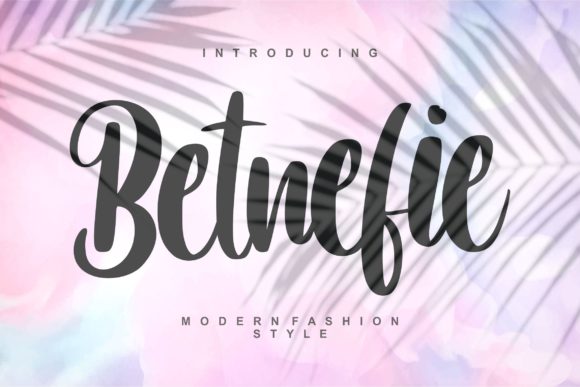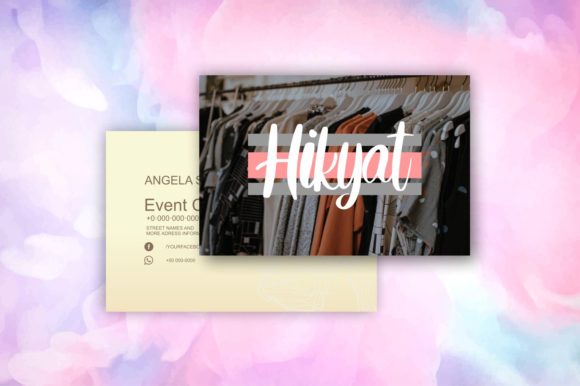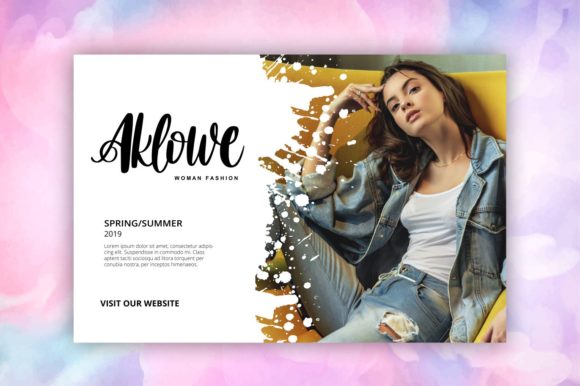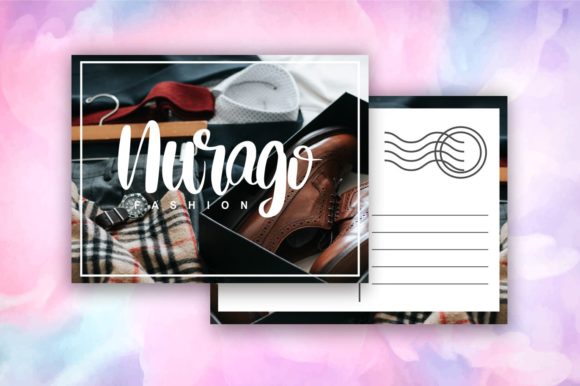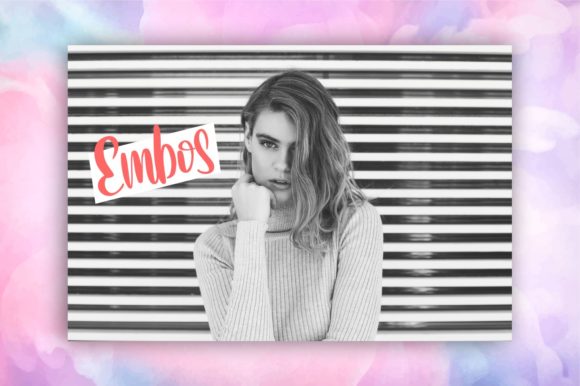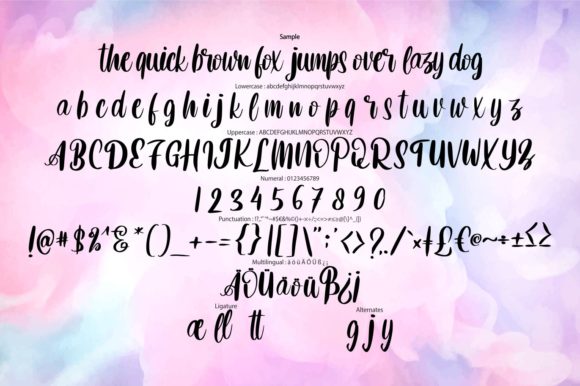
Betnefie Font
About Betnefie Font
With its unique calligraphic style, Betnefie is a fancy and beautiful crafting script that radiates life. It will add an authentic spin on any design project!